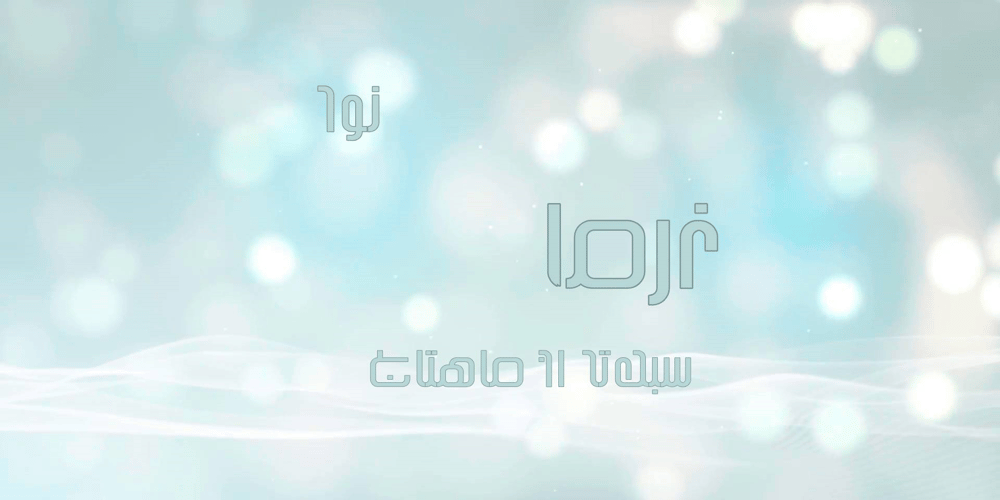
Narma Font Family was designed by Aria Fakhari and published by Fakharia. Narma contains 5 styles and family package options. Narma (نرما, Softness) represents the font family developed based on the proposed perso-arabic writing system. Its primary focus lies in enhancing the clarity and legibility of the resultant script.The font styles in this family differ from traditional Arabic conjoint fonts, as all five font styles are disconnected. Additionally, the shapes of the capital (isolated) letters have been modified to achieve a more uniform appearance.The narma LP (Less Point) denotes the dot-reduced version, wherein glyphs containing two or more dots are substituted with new dotless shapes. It is important to note that, with the exception of the narma regular style, all other styles utilize the reduced dots alphabet.The narma MC (Mixed Case) mimics Latin fonts, allowing typists to select between lowercase (Initial) and uppercase (Isolated) letters using a software shift key. The software shift feature can be turn on/off by hitting two consequent Alef_Hamza_above/Alef_Hamza_below letters. more…The last two styles are Small Caps (narma SC) and All Caps (narma AC) versions of this font family.More related styles are available within the narm font family.